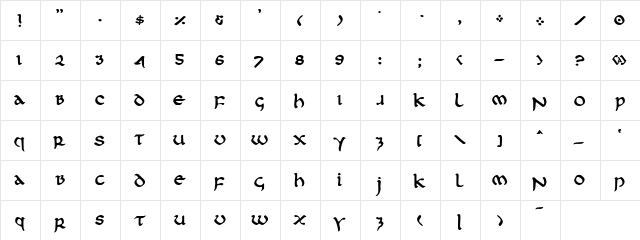
First Order Plain Plain
Design Context for First Order Plain Typeface
First Order Plain is a composed and adaptable typeface that performs quietly and consistently across a wide range of design contexts.